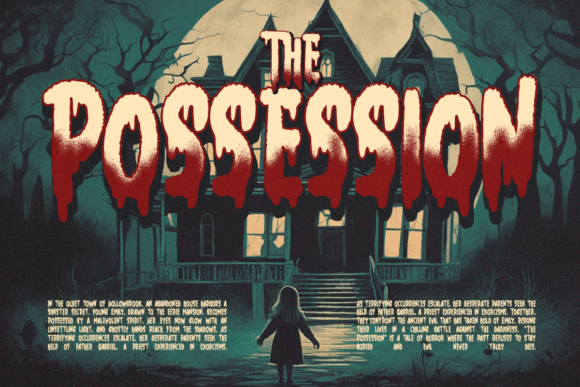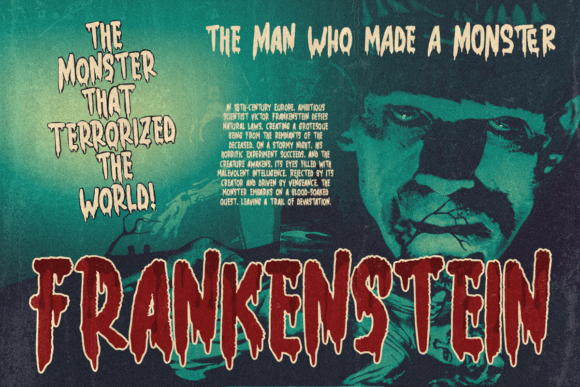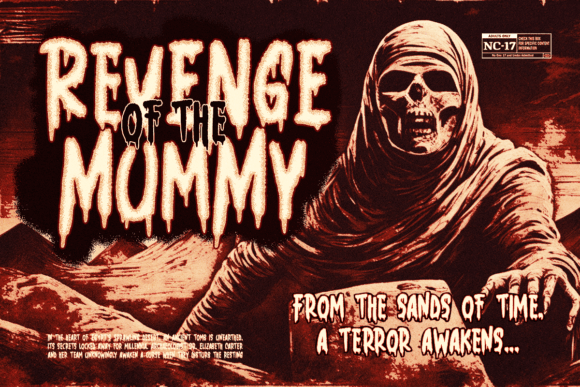
Introduction to Gloomy Grave Font
Introducing Gloomy Grave, a handmade horror font that captures the essence of Halloween and spine-chilling terror.
This font blends the eerie, rough textures of haunted nights with the sinister charm of classic horror comics, making it perfect for creating terrifyingly authentic designs With its creepy, blood-soaked letters, Gloomy Grave drips with dark allure.
Key Features of Gloomy Grave Font
Why Choose Gloomy Grave Font?
Gloomy Grave Font offers exceptional quality and versatility, making it a valuable addition to your design toolkit. Whether you’re creating for personal projects or commercial use, Gloomy Grave Font delivers professional results.